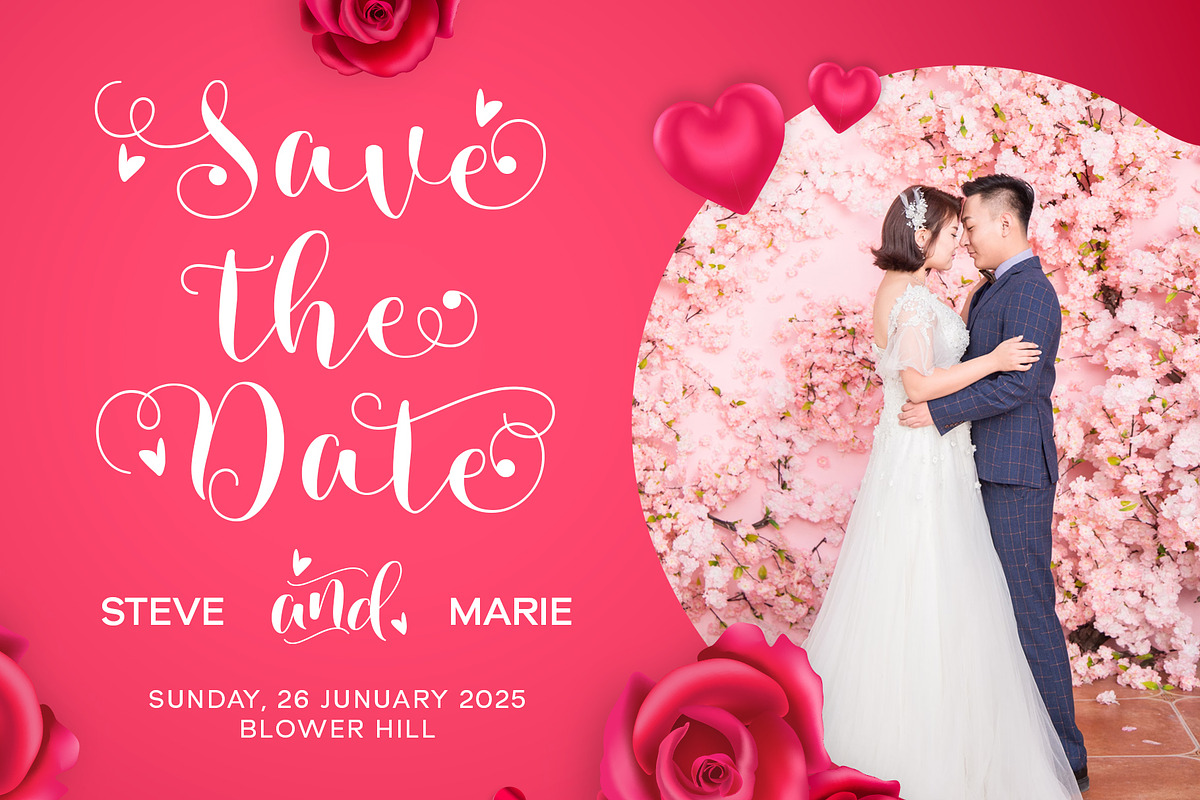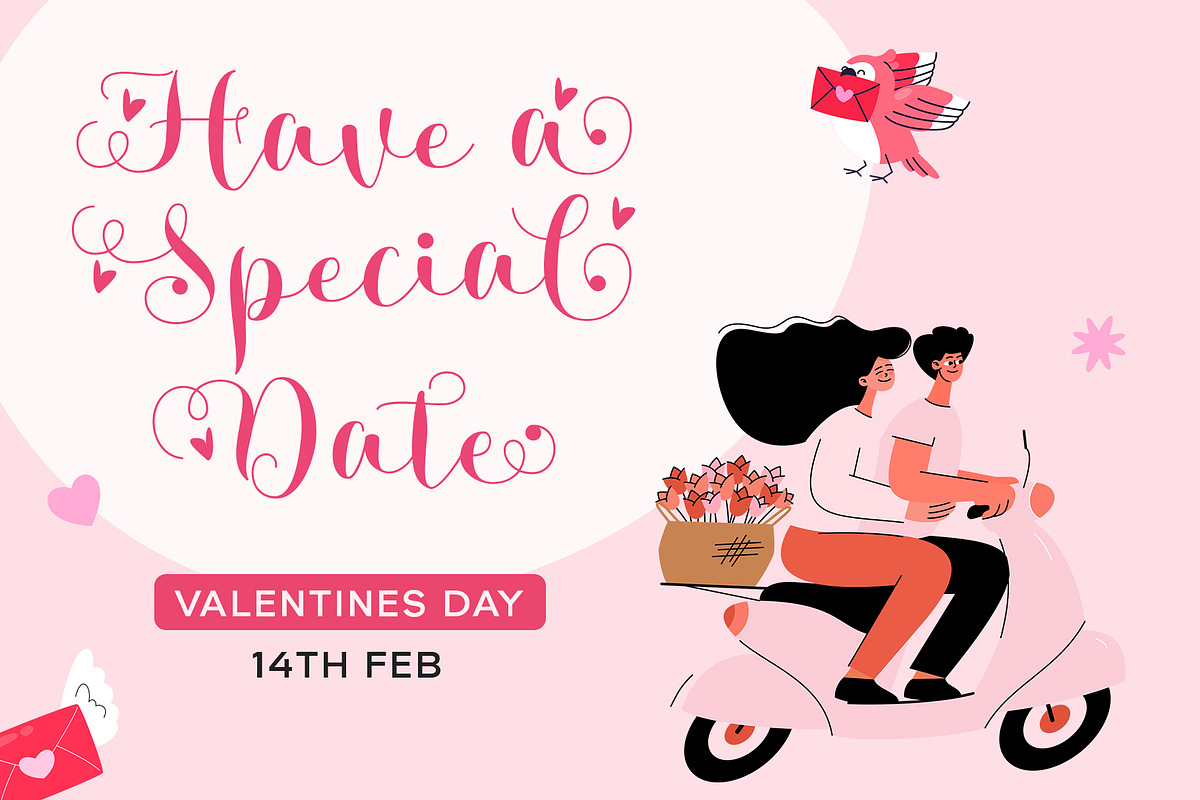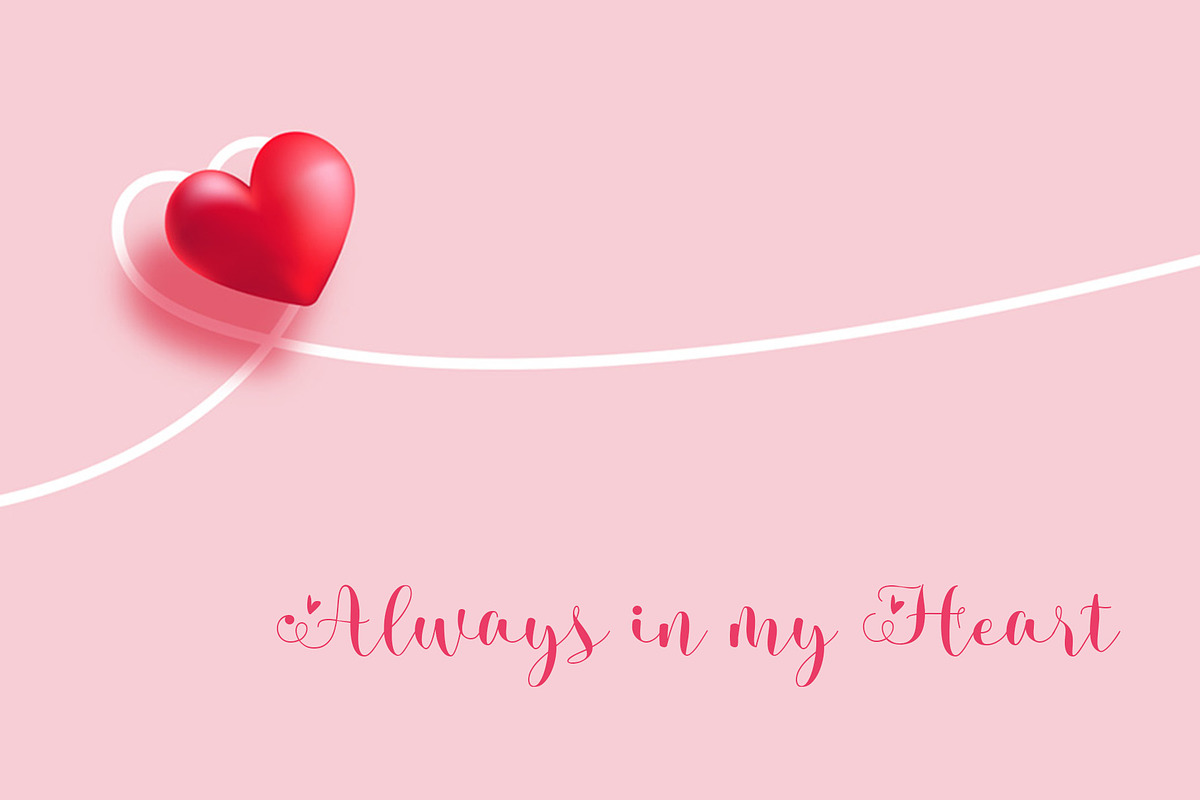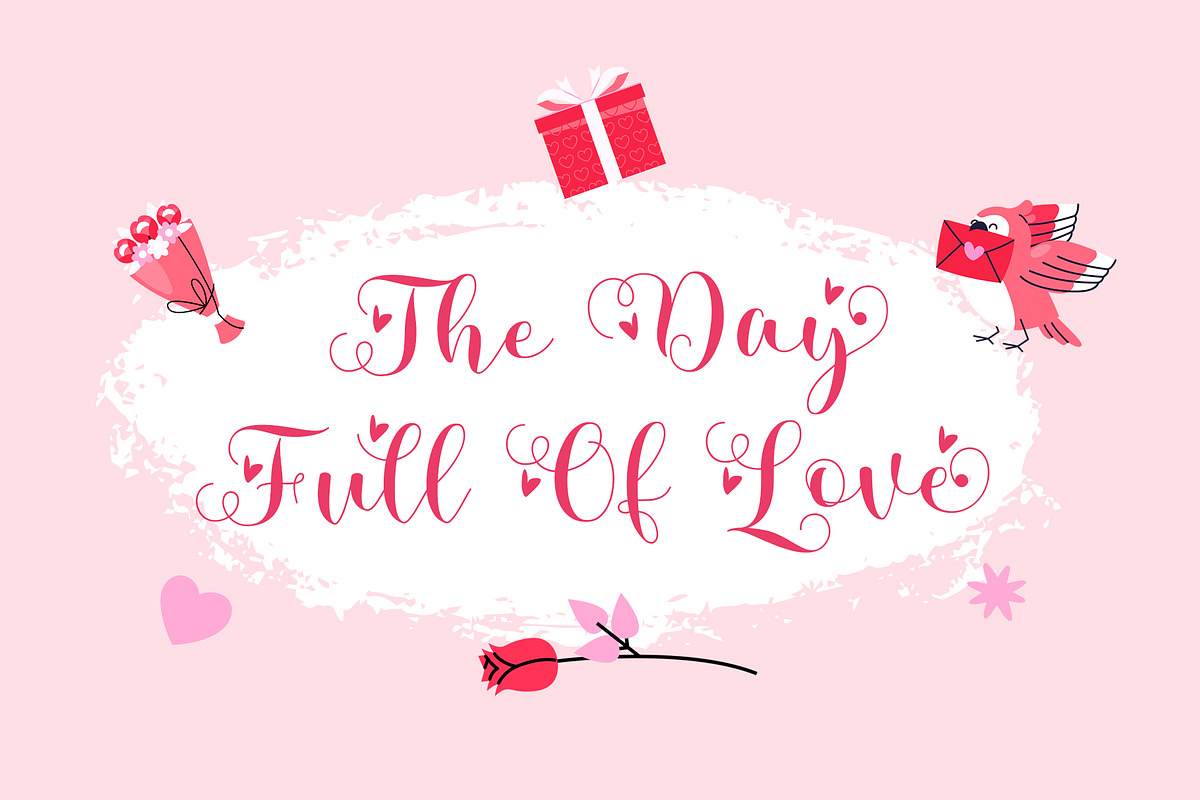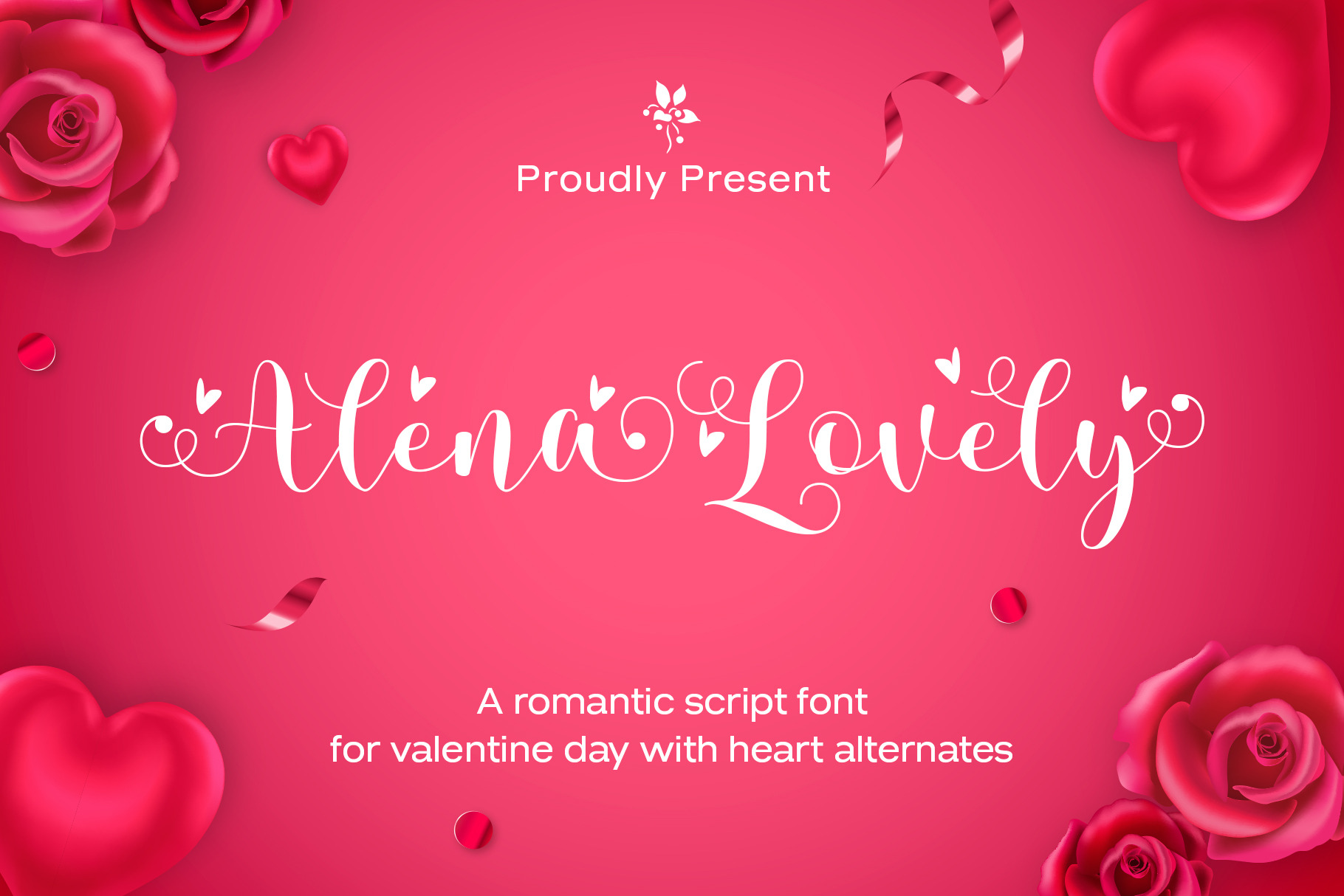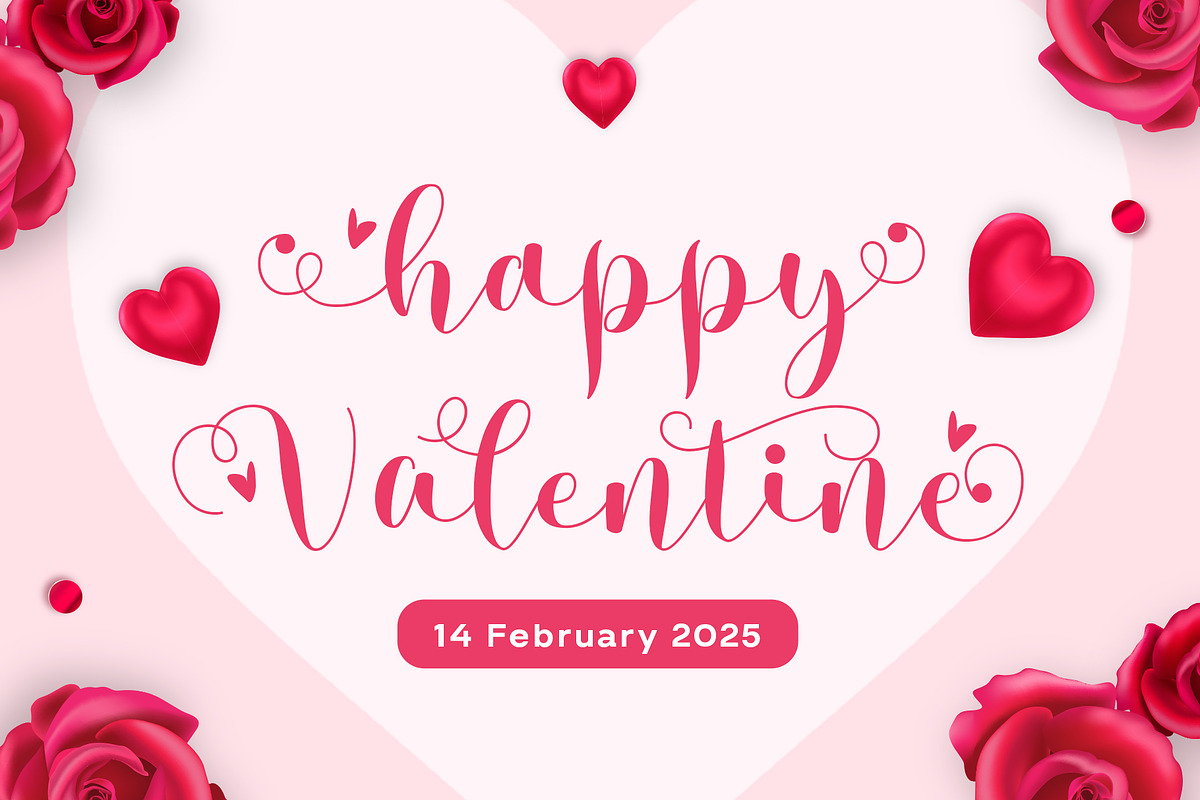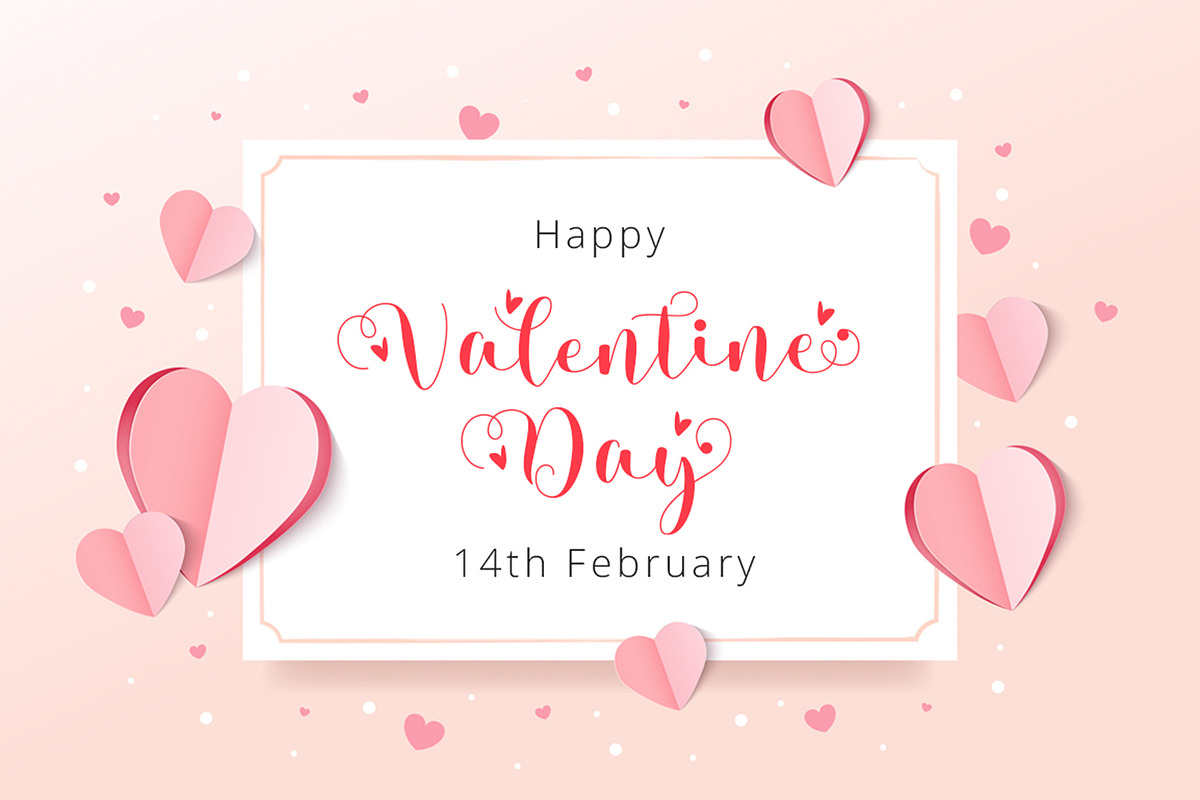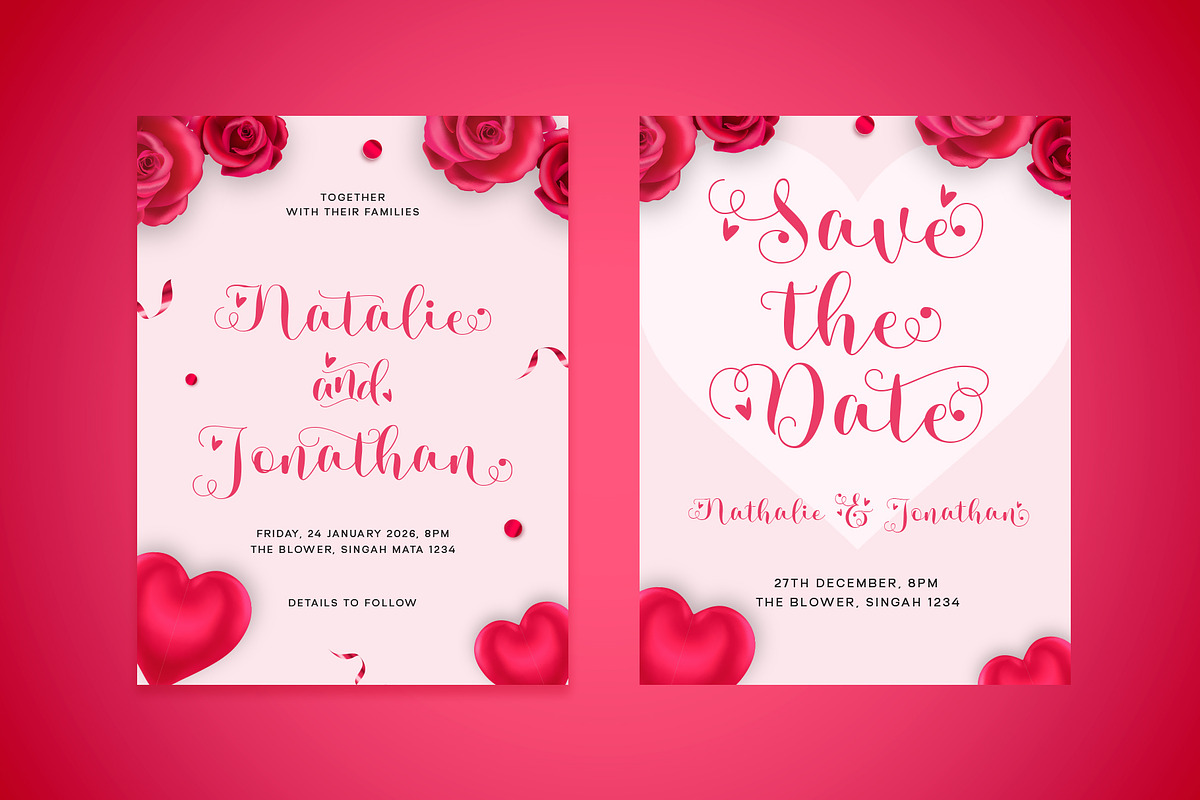
Alena Lovely - Romantic Script Font
Alena Lovely is a script calligraphy font that exudes a romantic and elegant charm. Designed specifically for celebrating moments of love such as Valentine's Day, weddings, and other romantic events, Alena Lovely brings a graceful touch to every letter.
With an array of alternate characters and heart swashes, this font offers flexibility to create unique and memorable designs. Each curve and detail radiates beauty, making it perfect for conveying love in a captivating way.
Alena Lovely is the ideal choice for wedding invitations, Valentine’s Day cards, or any romantic design that calls for a soft and elegant touch. Combining classic elegance with a modern flair, it’s the perfect way to leave a lasting impression in any design project.
- Number, Symbol & Punctuation
- Uppercase Alternates
- Stylistic Set & Heart Swashes